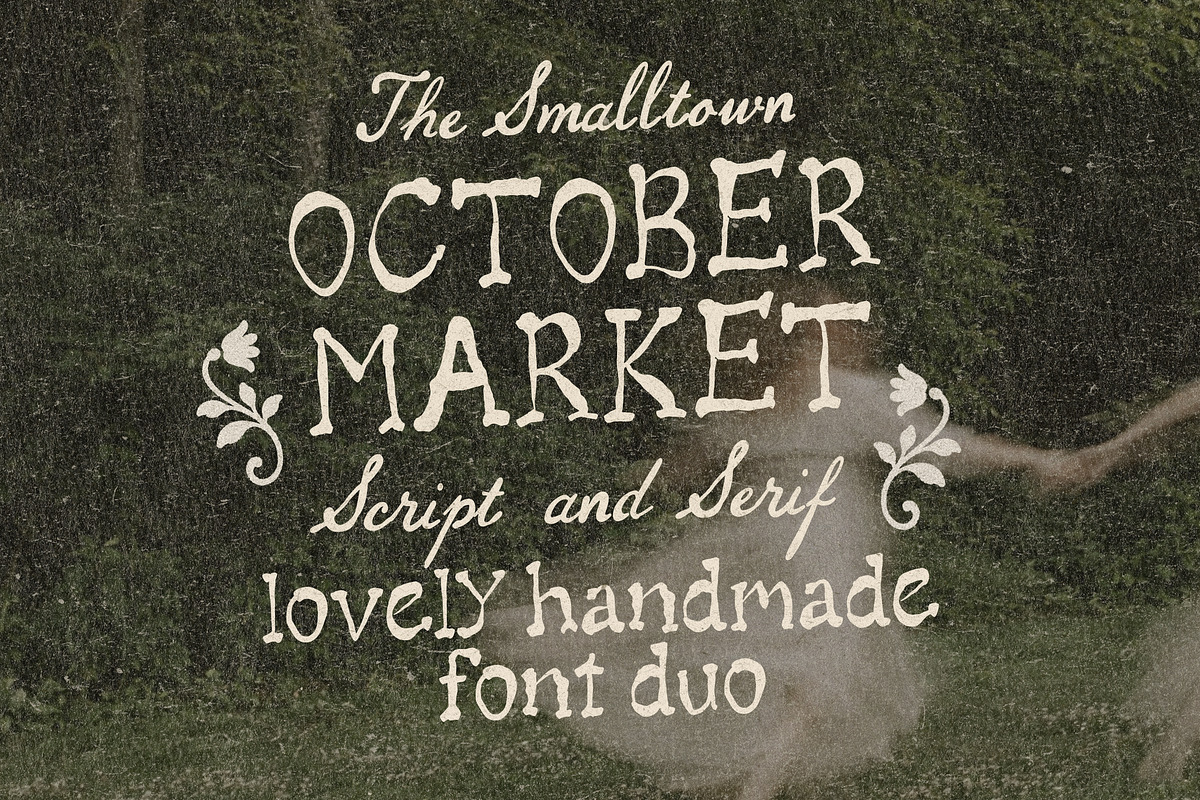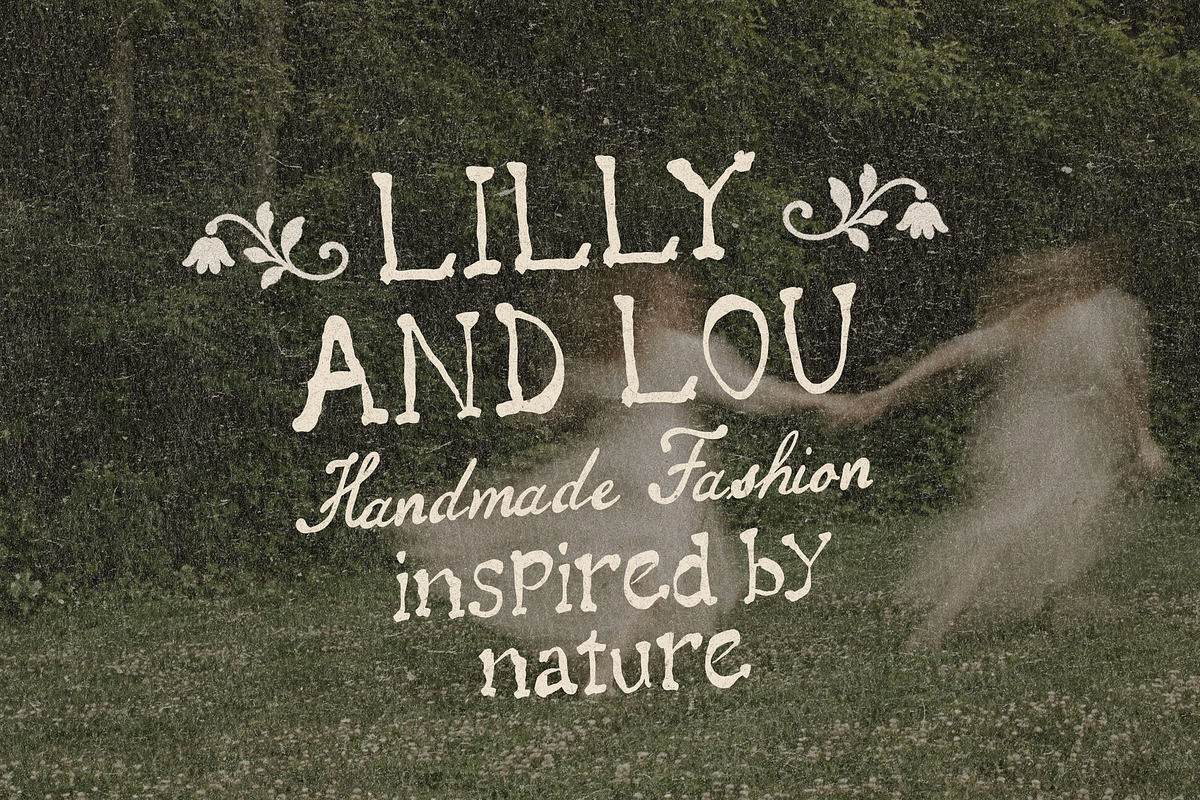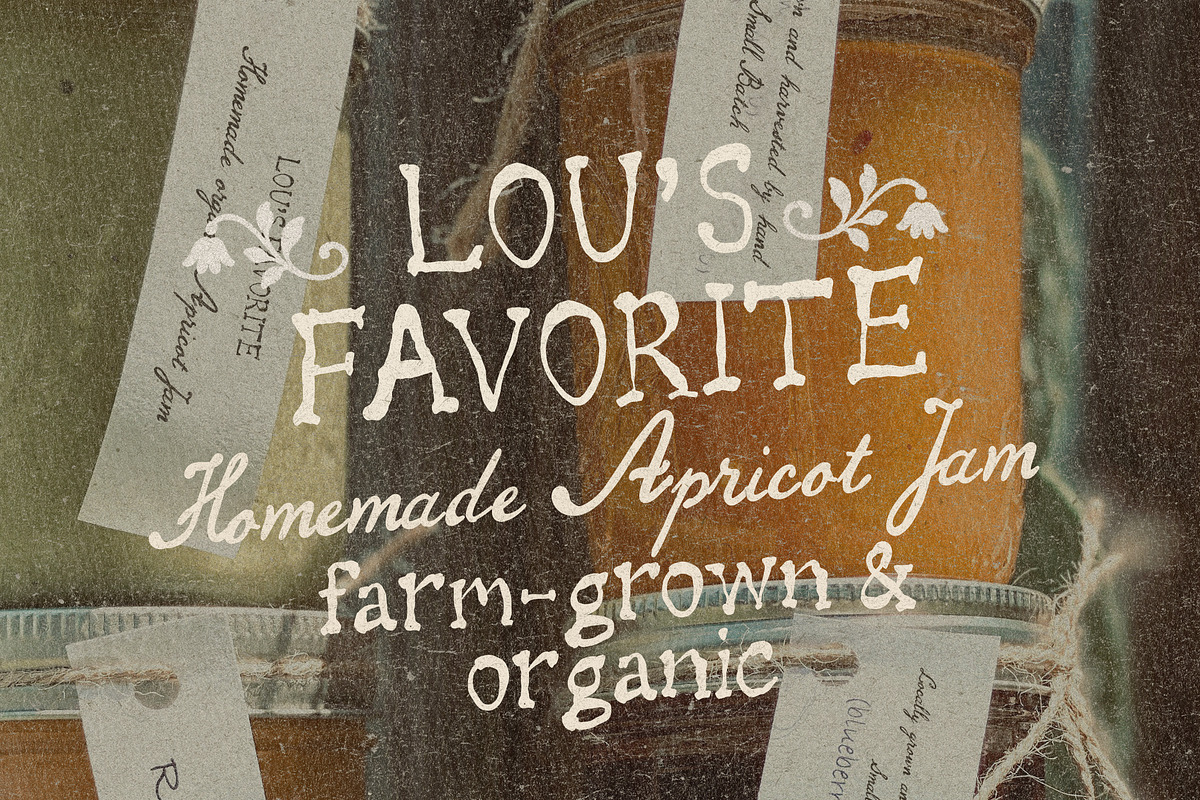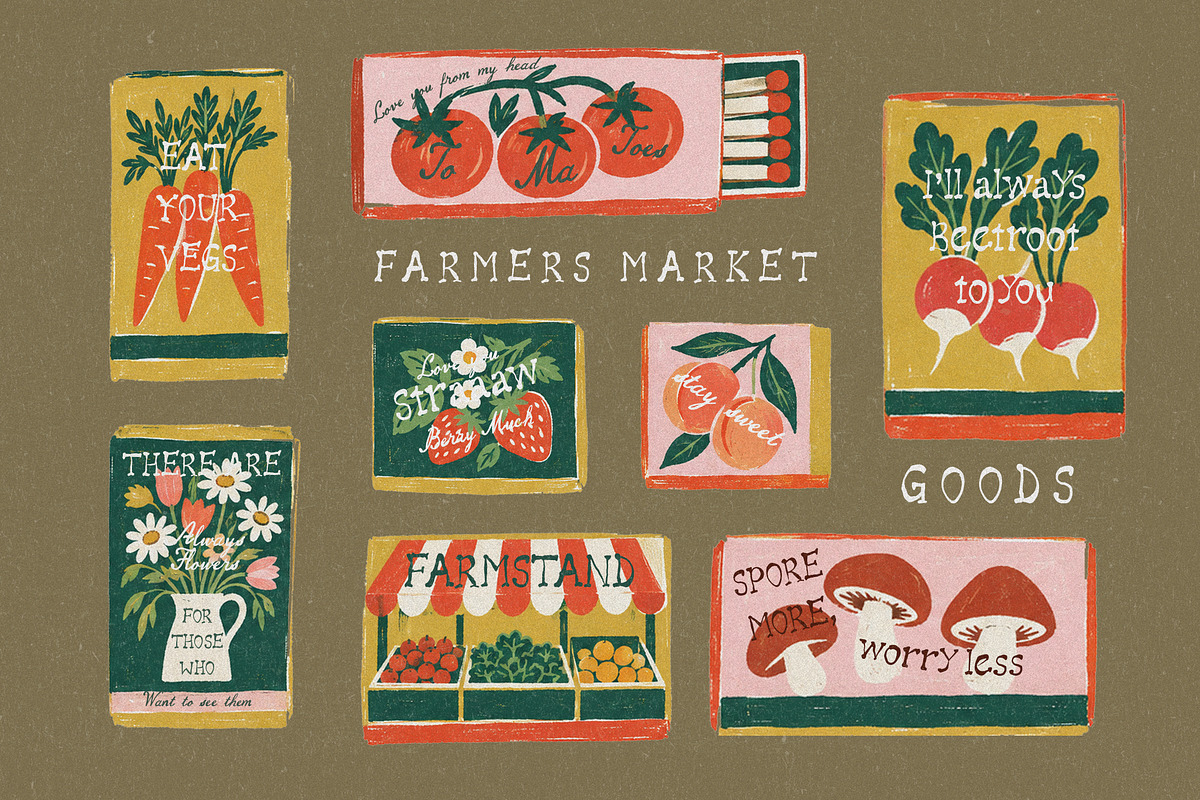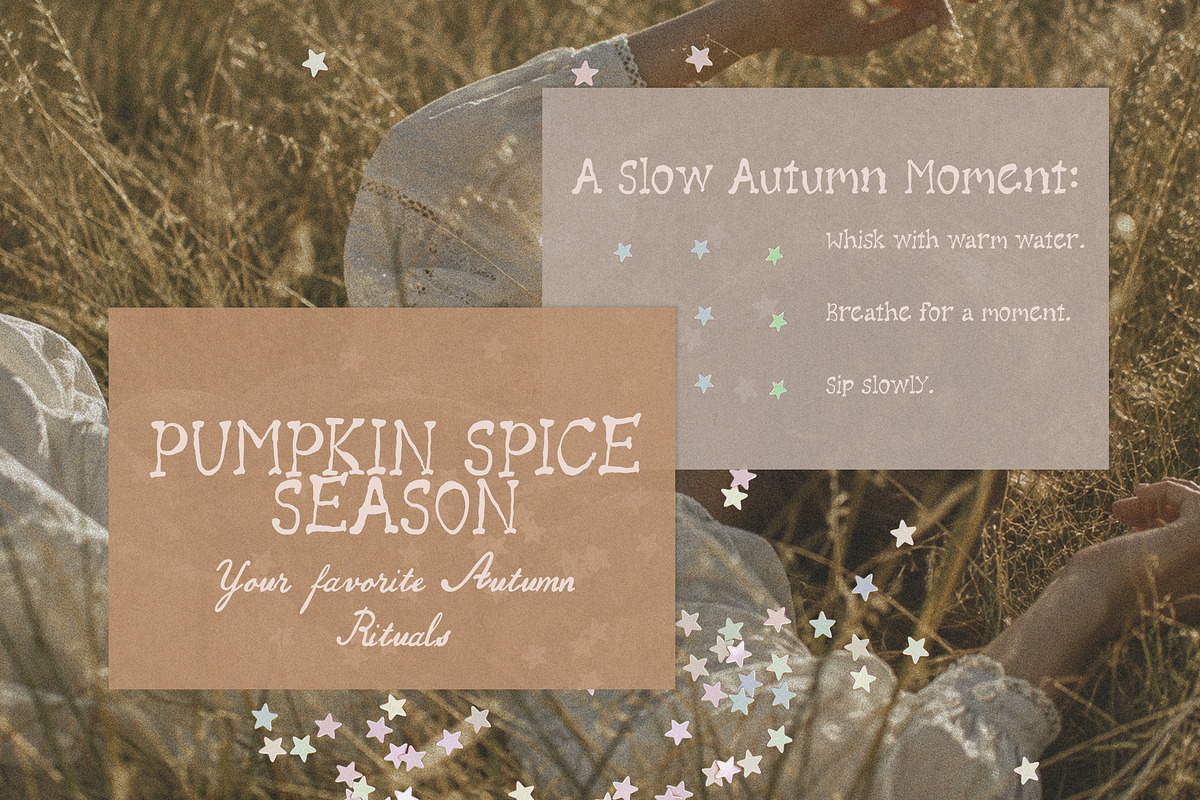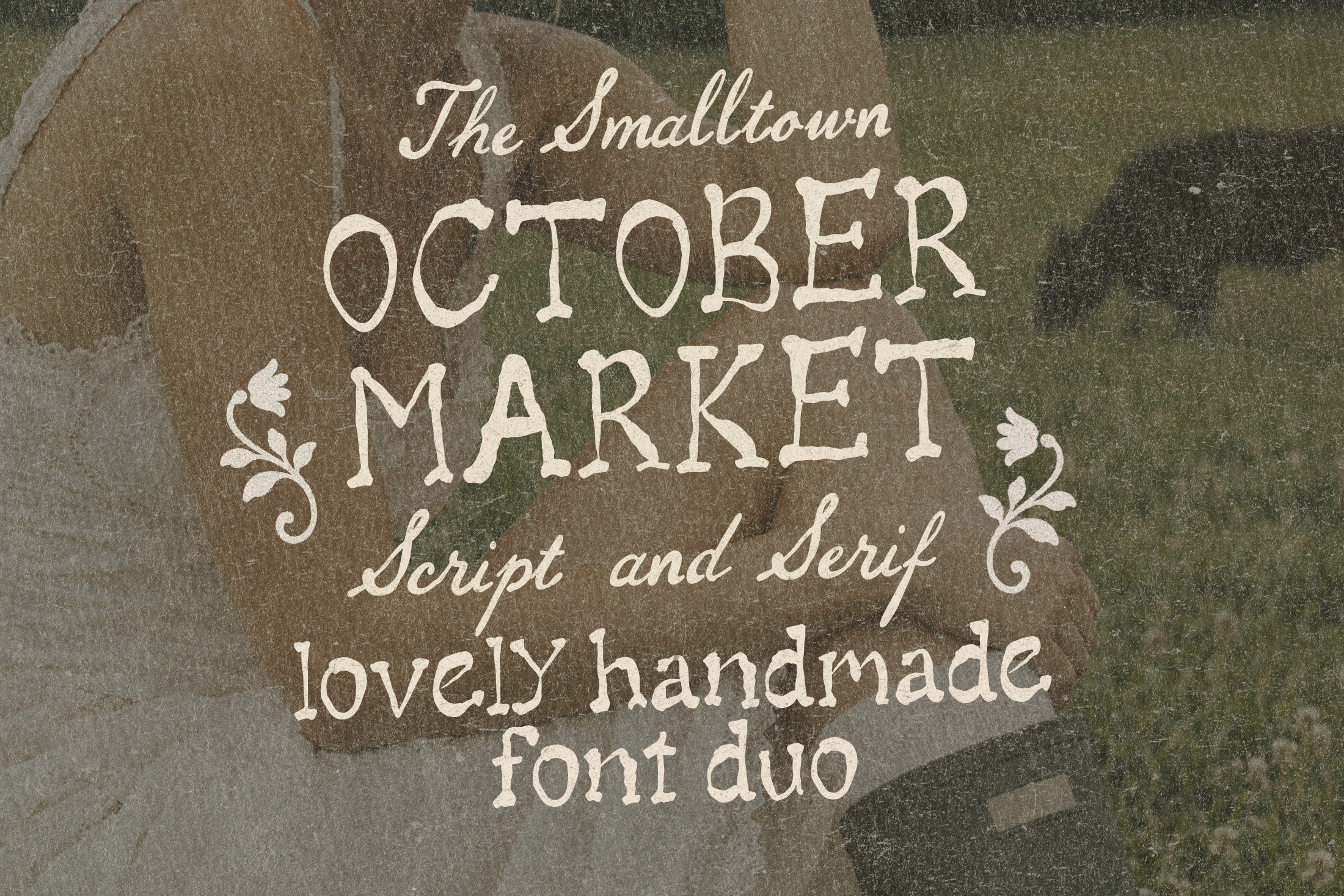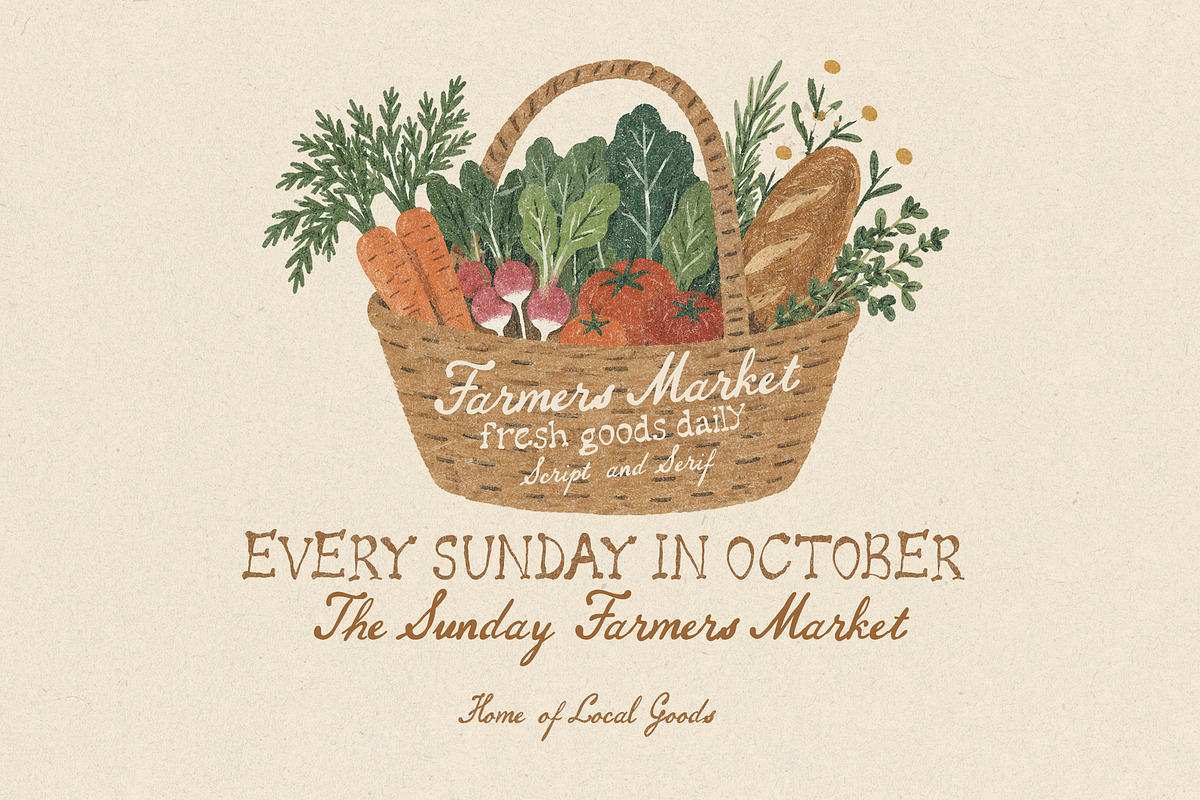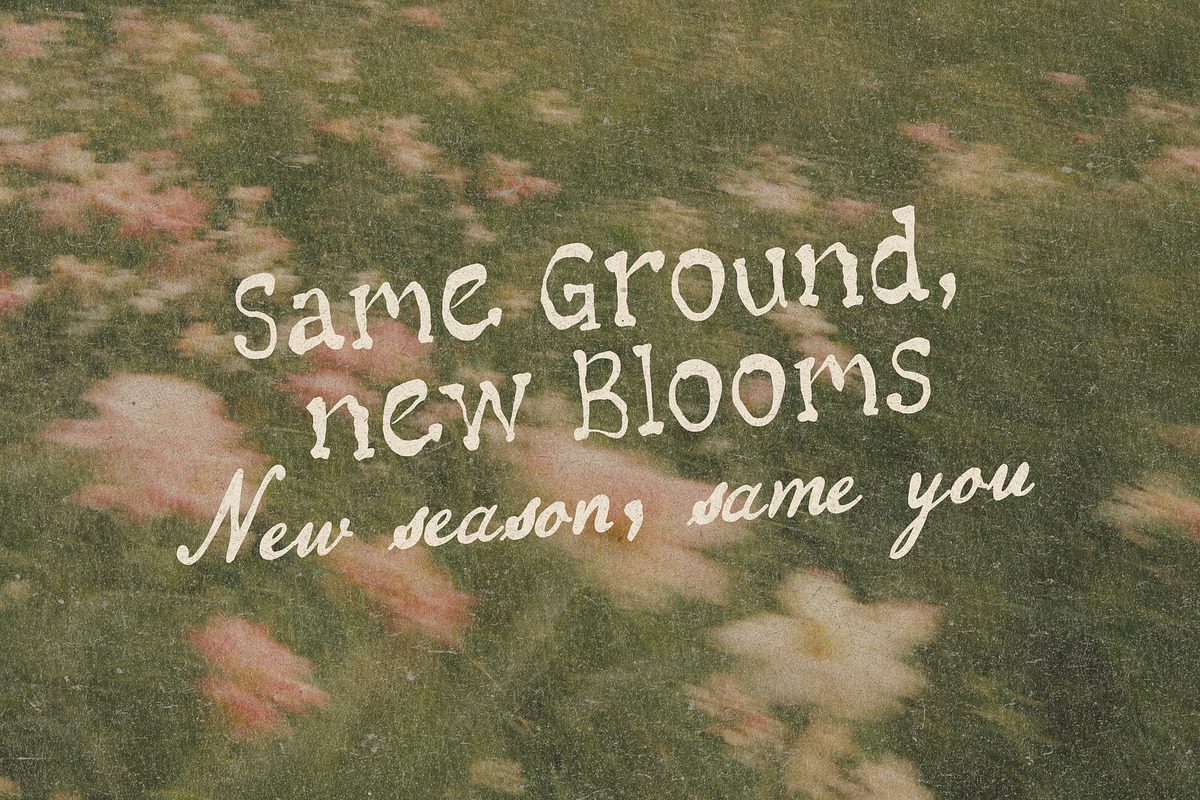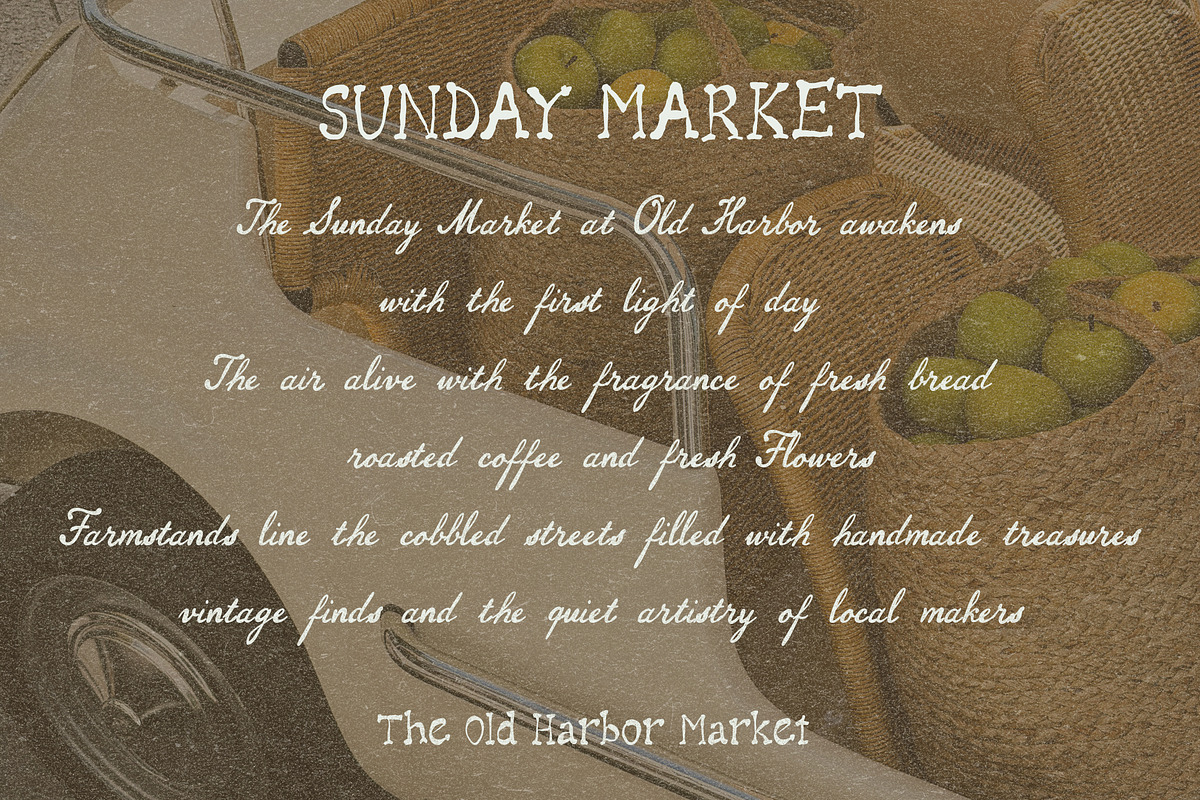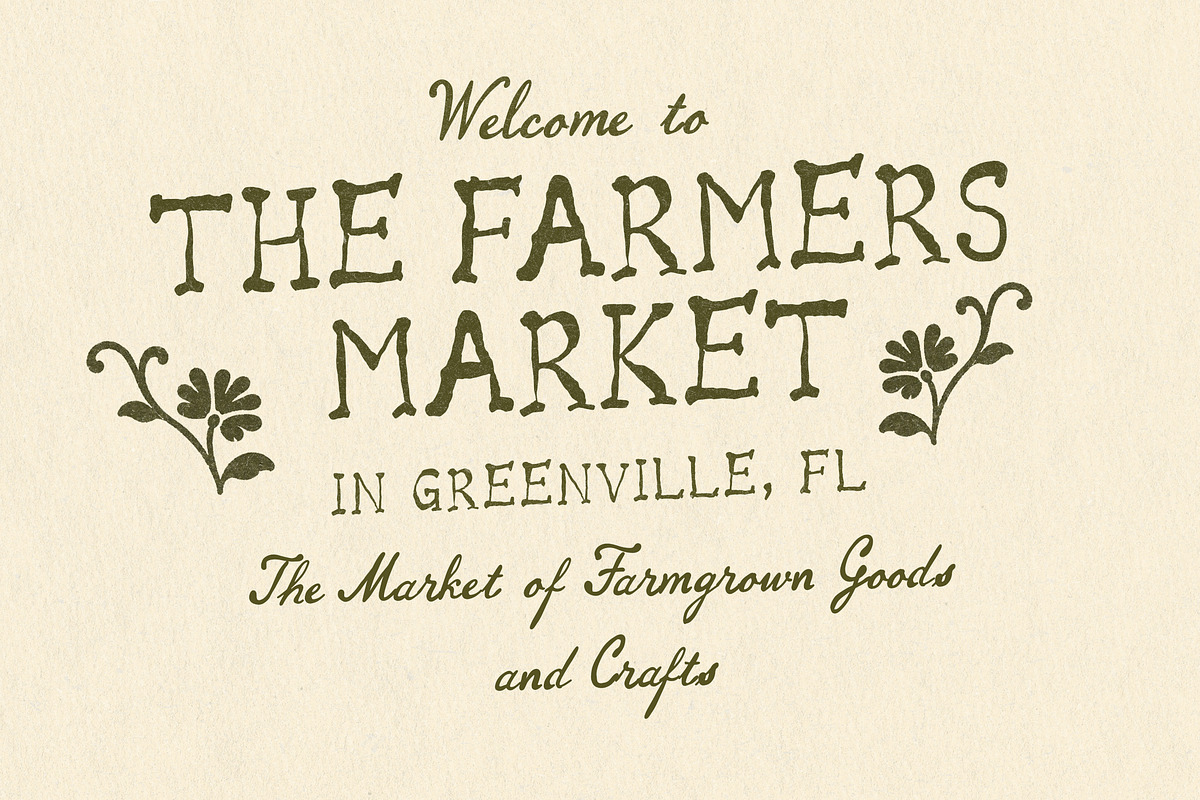
Rustic Handwritten Autumn Font Duo
Welcome a sweet and handwritten duo of a farmhouse-inspired script and a rustic serif font. A beautiful match for Autumn signage, cottagecore logo design and branding, Halloween designs and all your other Autumn projects!
Sweet and carefully crafted with organic curves and details, the duo is sure to add that effortless, countryside inspired Farmer's Market flair to your artwork.
OctoberMarket.Otf (a rustic and handwritten serif font)
SmalltownScript.Otf (a sweet and lovely little script)
Perfect for Halloween cards and stickers, Autumn signage, cottagecore inspired designs, rustic farmhouse projects and so much more!